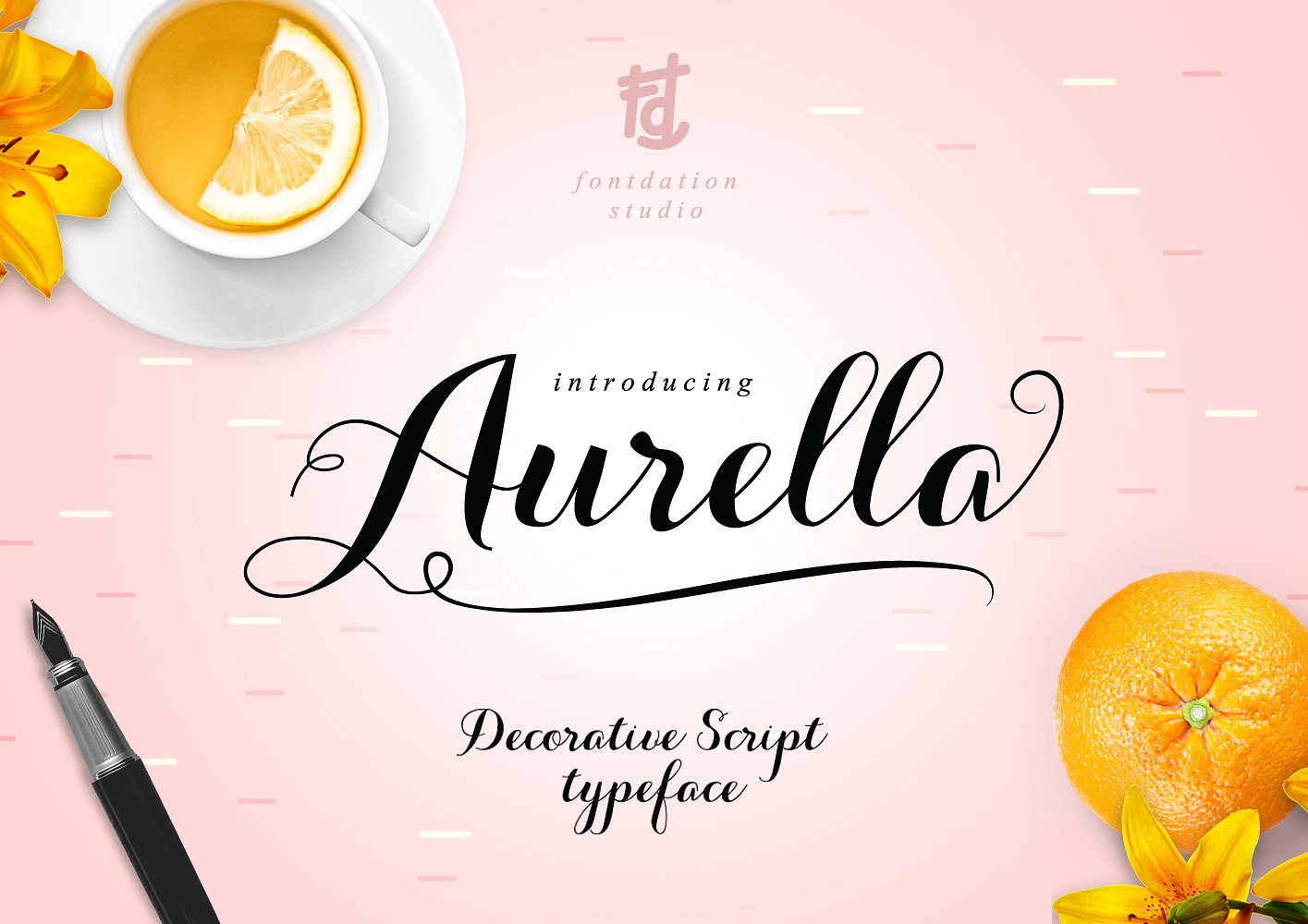
Aurella Script
Aurella Script Font
Aurella Script is a handwritten calligraphy fonts with beautiful, classic and elegant touch. This font can be use in headings, signatures, logos, wedding invitations, t-shirts, greeting cards, labels, packagings, poster, badges etc.
Aurella Script